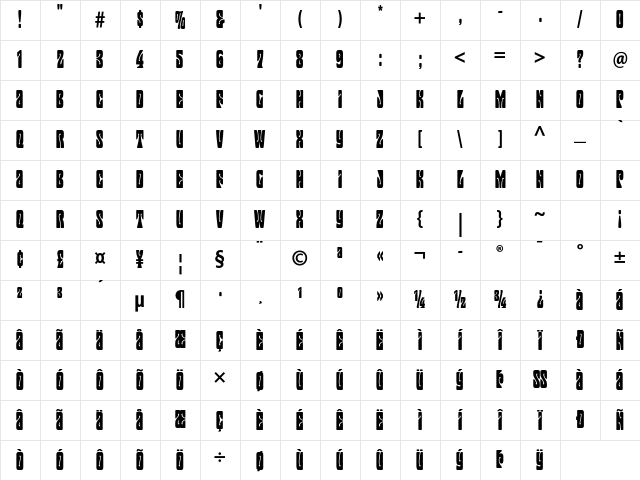
Mojo Std Regular
Designer: Jim Parkinson
Complete Mojo Std Regular glyph index. Displaying only characters natively supported by Mojo Std Regular font.
Design Context for Mojo Std
Mojo Std is a composed and adaptable typeface that performs quietly and consistently across a wide range of design contexts.